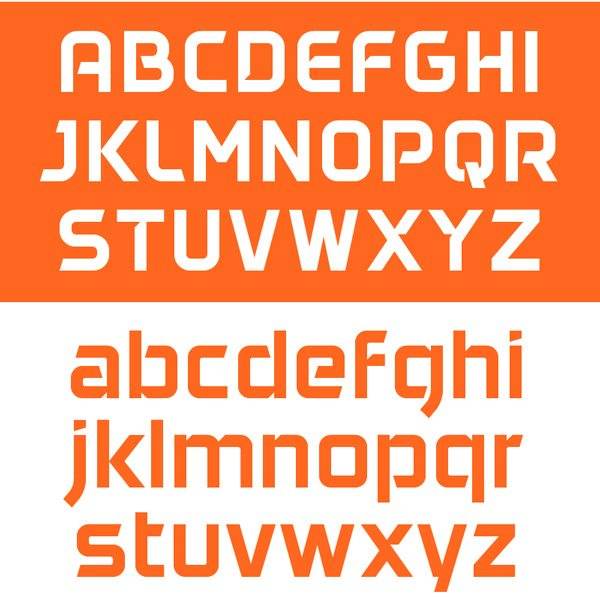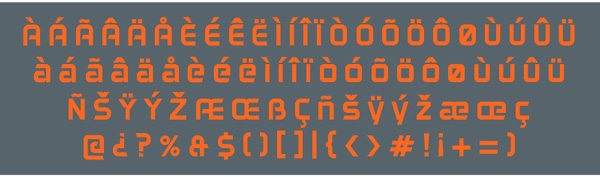
Daggersquare
Free Font Of The Day #117 – Font Daggersquare
Font Daggersquare is a geometrical display sans font with a techno style. Designed by Néstor Delgado.